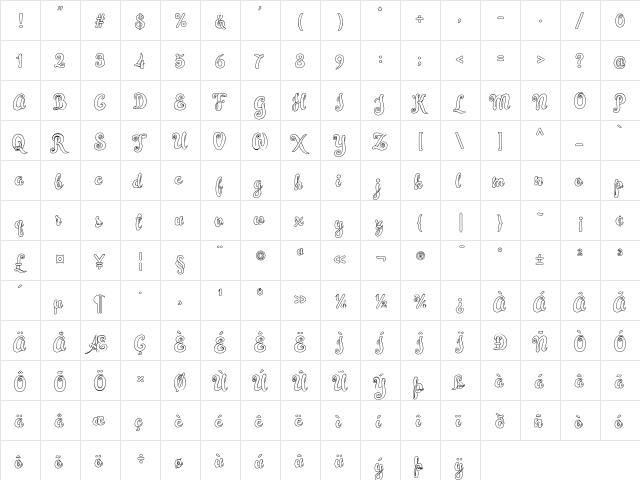
Simplisicky Regular
| Foundry | darwinoo |
| Designer | darwinoo |
Design Context for Simplisicky Typeface
Simplisicky is a composed and adaptable typeface that performs quietly and consistently across a wide range of design contexts.